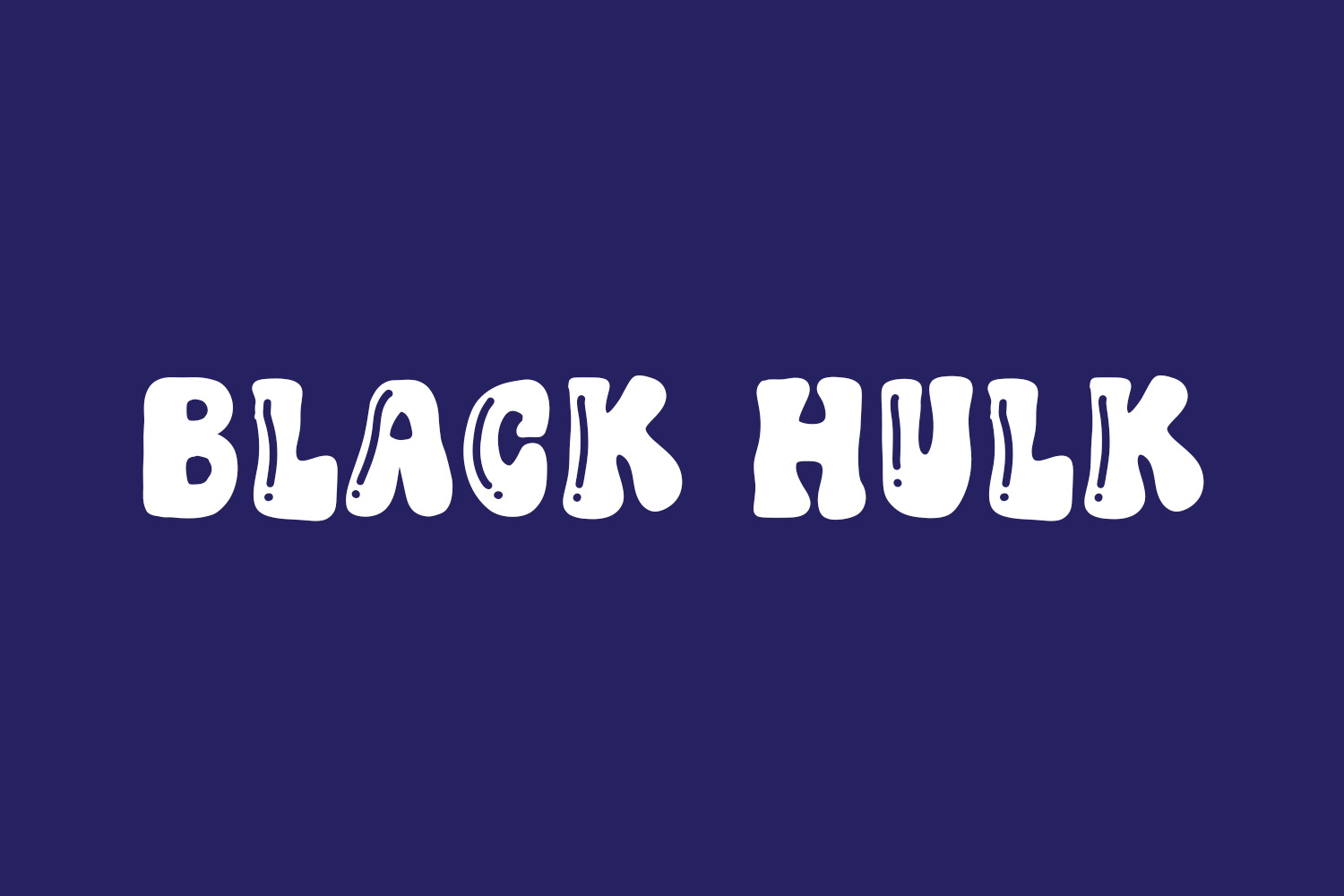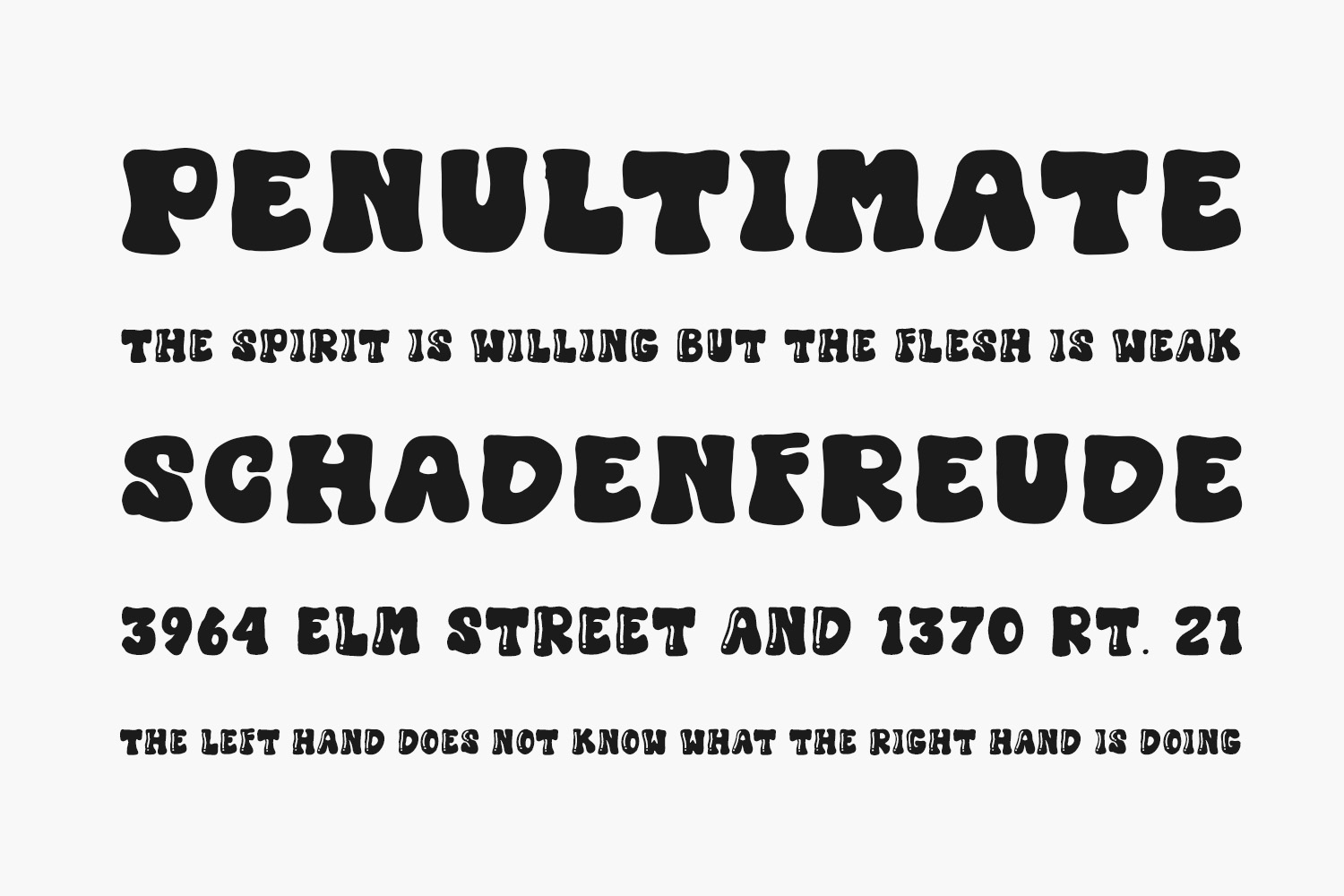
Black Hulk Free Font, a trendy and bold display font, is an ideal choice for vibrant and upbeat themes. Its cool demeanor makes it perfect for children’s themed designs, particularly when paired with lively and bright colors. Enhance your creative projects with the playful charm of Black Hulk. Black Hulk Free Font is free for personal use only. Please purchase the full version for commercial use.